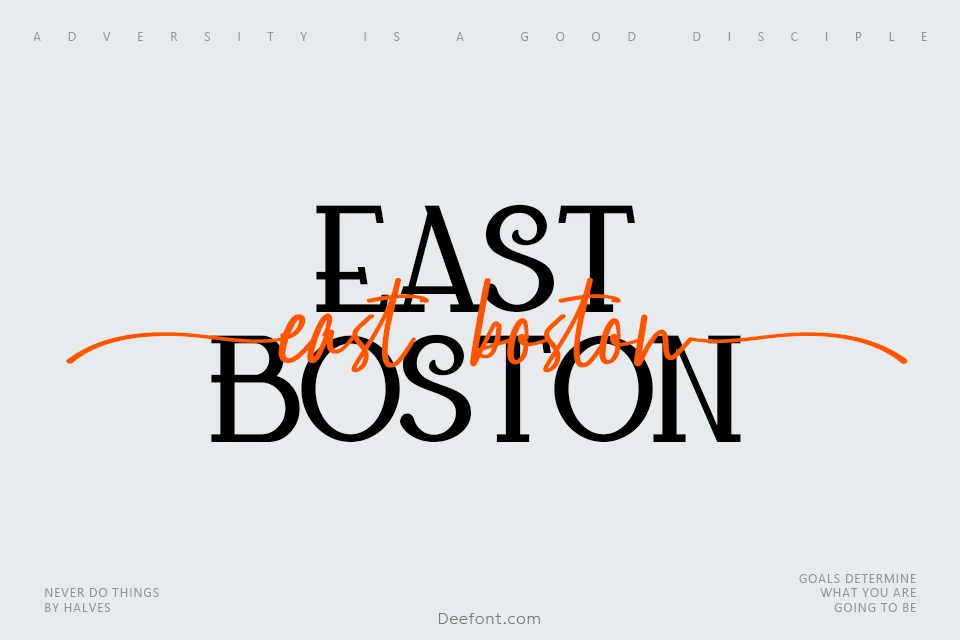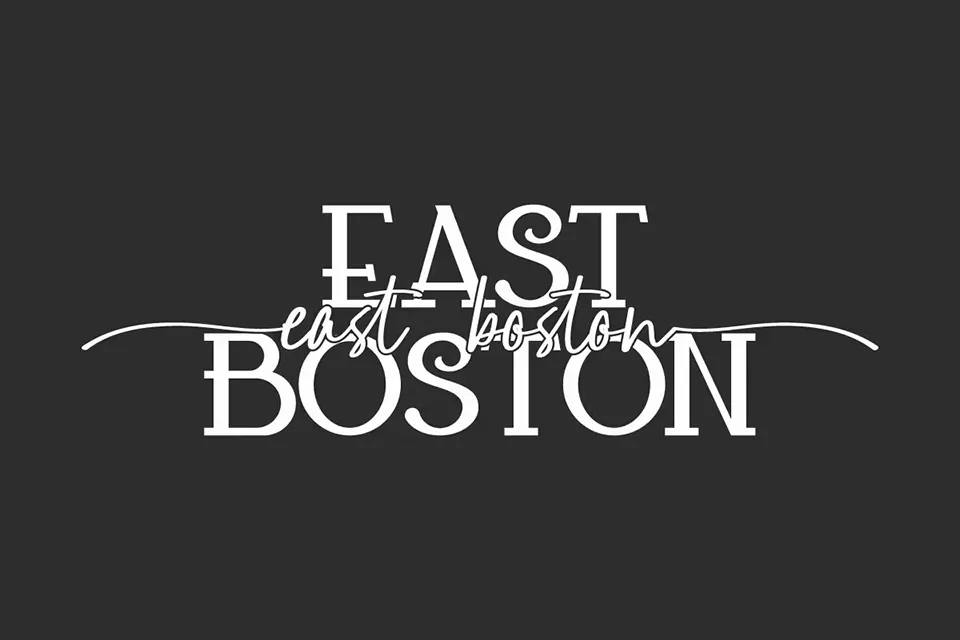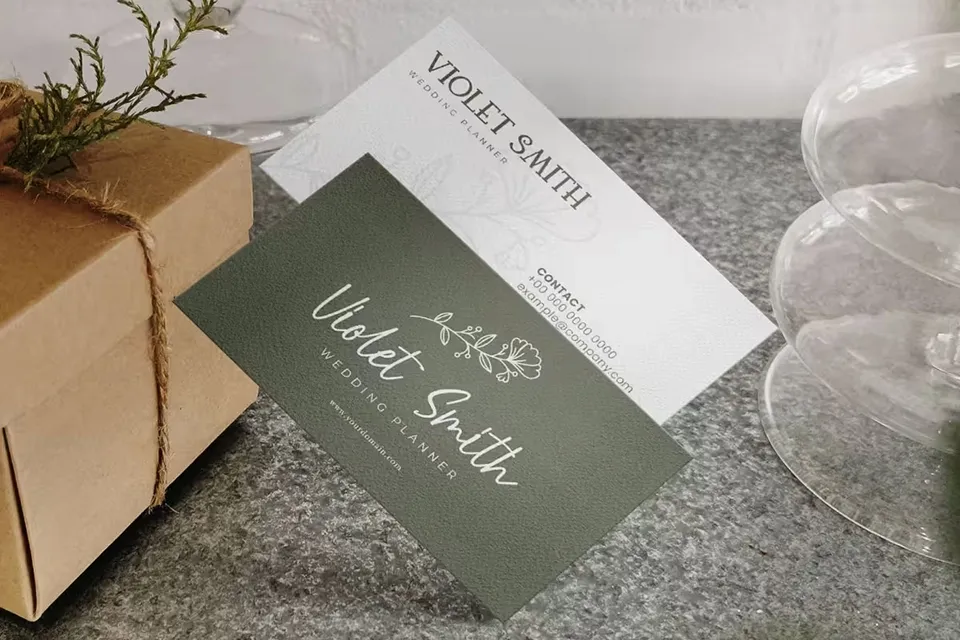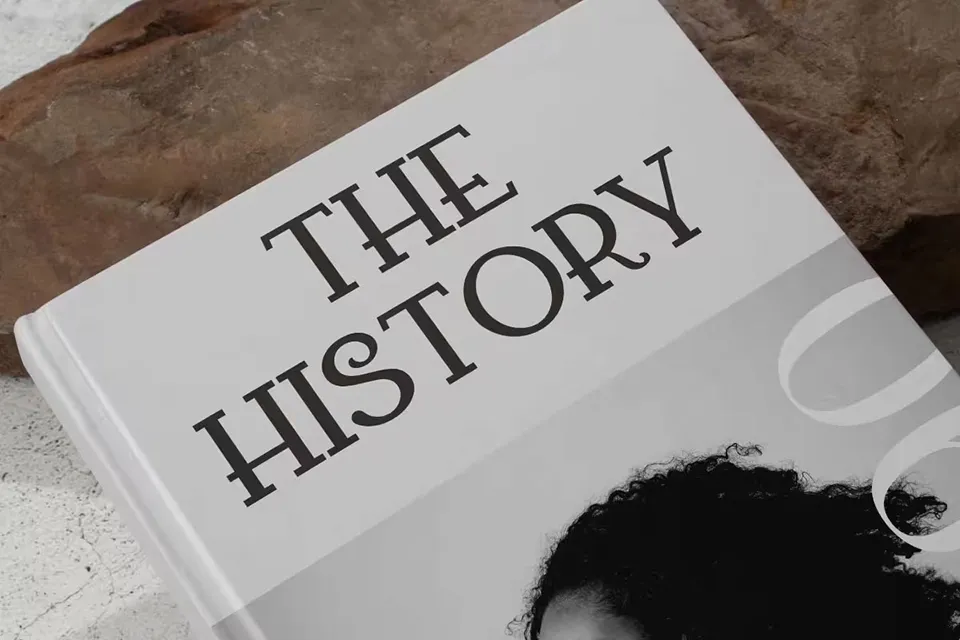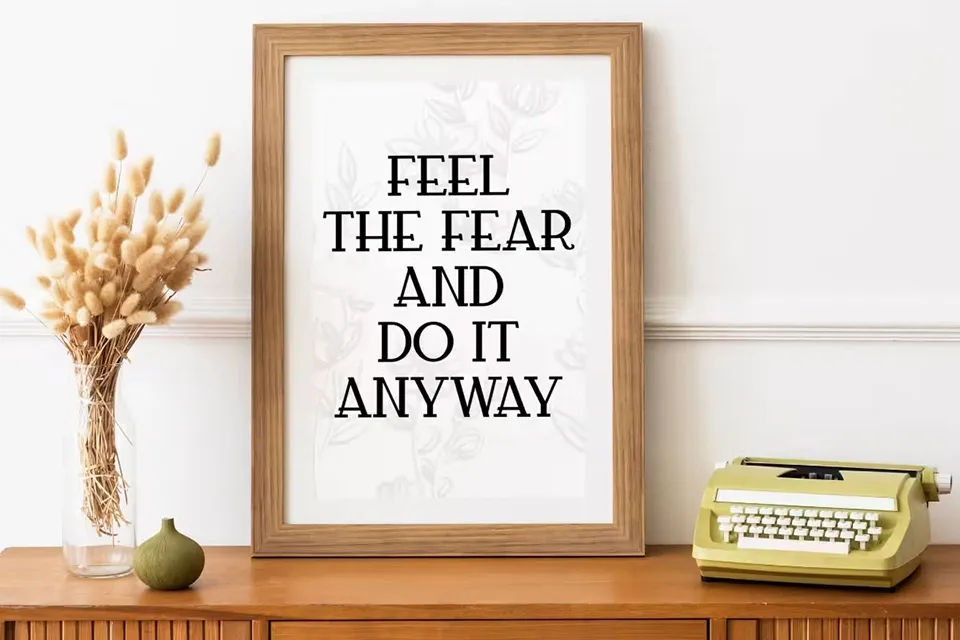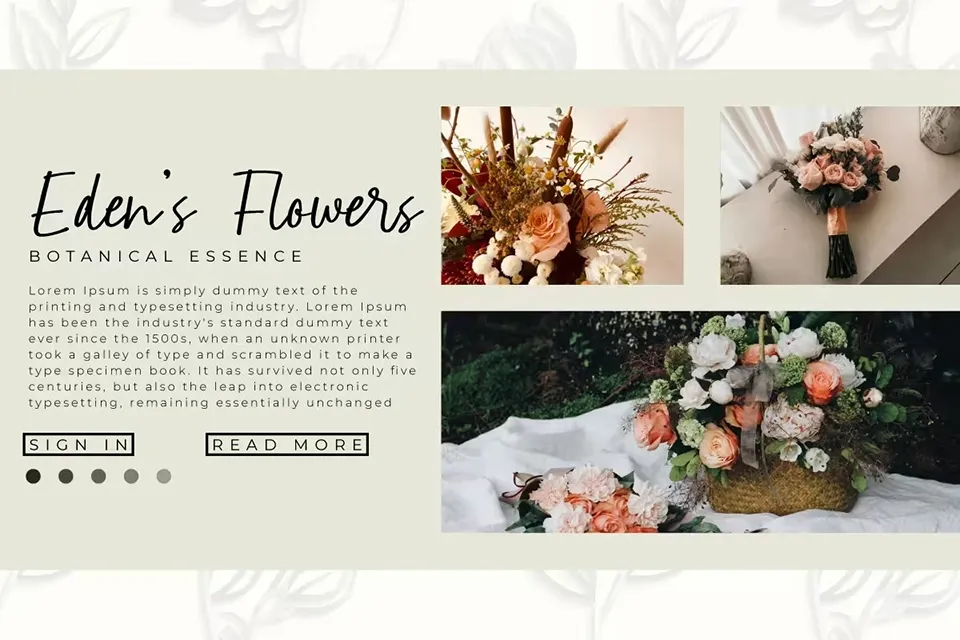
East Boston Font Duo
The East Boston Font is a versatile font duo featuring a unique serif display paired with a handwritten script. This combination delivers a minimalist yet elegant impression, making it ideal for a wide range of creative applications such as crafts, fashion, publishing, restaurants, weddings, and more. The font includes a full set of uppercase and lowercase characters, numerals, punctuation, ligatures, and swooshes, ensuring flexibility and style for headlines, business cards, menus, quotes, and various design projects.